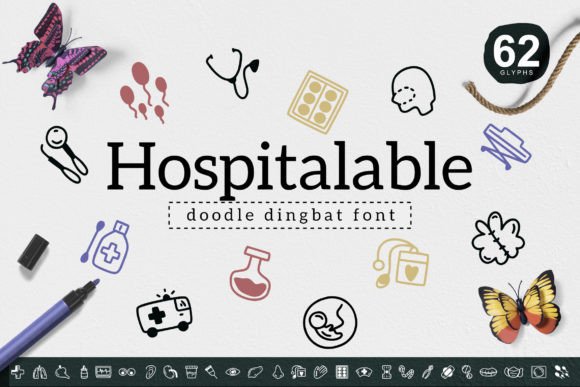
Enter the realm of creativity and expression with Hospitalable Font, the ultimate dingbats font that will ignite your imagination and transform your designs into captivating masterpieces. Unleash your artistry and let your ideas take flight as you explore the endless possibilities this font offers.
Hospitalable Font is more than just a collection of symbols and shapes; it's a portal to a world of limitless possibilities. With its playful and versatile nature, this font is the perfect companion for a myriad of projects, from stickers and posters to t-shirts and cards. Its unique and eye-catching designs will add a touch of whimsy and charm to your creations, setting them apart from the ordinary.
Imagine the delight of crafting stickers that spark conversations and bring smiles to faces. Create posters that captivate audiences with their visual intrigue. Design t-shirts that make a statement and reflect your personal style. Craft cards that convey heartfelt messages in a truly memorable way. The applications of Hospitalable Font are boundless, allowing you to weave your creative magic into every aspect of your life.
As you delve deeper into the world of Hospitalable Font, you'll discover a treasure trove of captivating symbols and shapes, each one meticulously crafted to ignite your imagination. From quirky characters to intricate patterns, this font has everything you need to bring your creative visions to life. Its vast selection ensures that you'll always find the perfect element to add that special touch to your designs.
Don't settle for ordinary fonts that blend into the background. Choose Hospitalable Font and embark on a creative adventure where your ideas take center stage. Its playful spirit and endless versatility will transform your designs into works of art, leaving a lasting impression on all who encounter them. Unleash your creativity and experience the joy of creating with Hospitalable Font today!